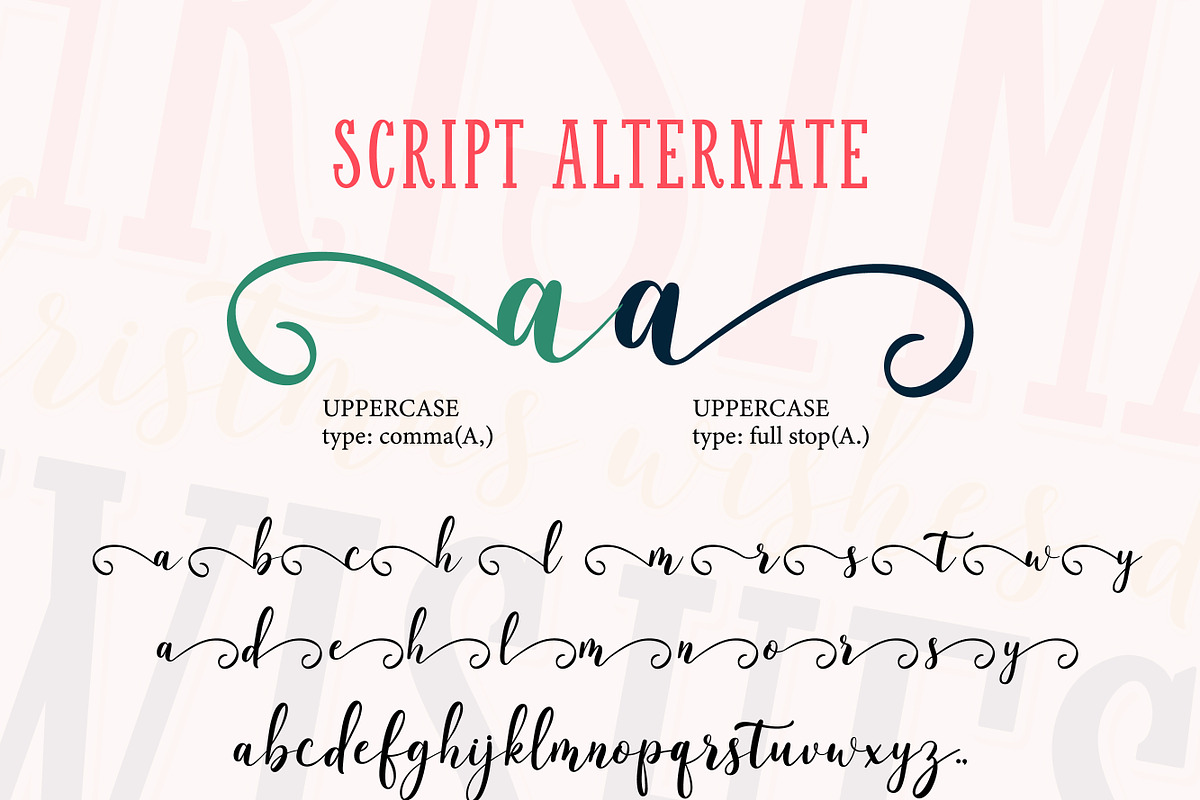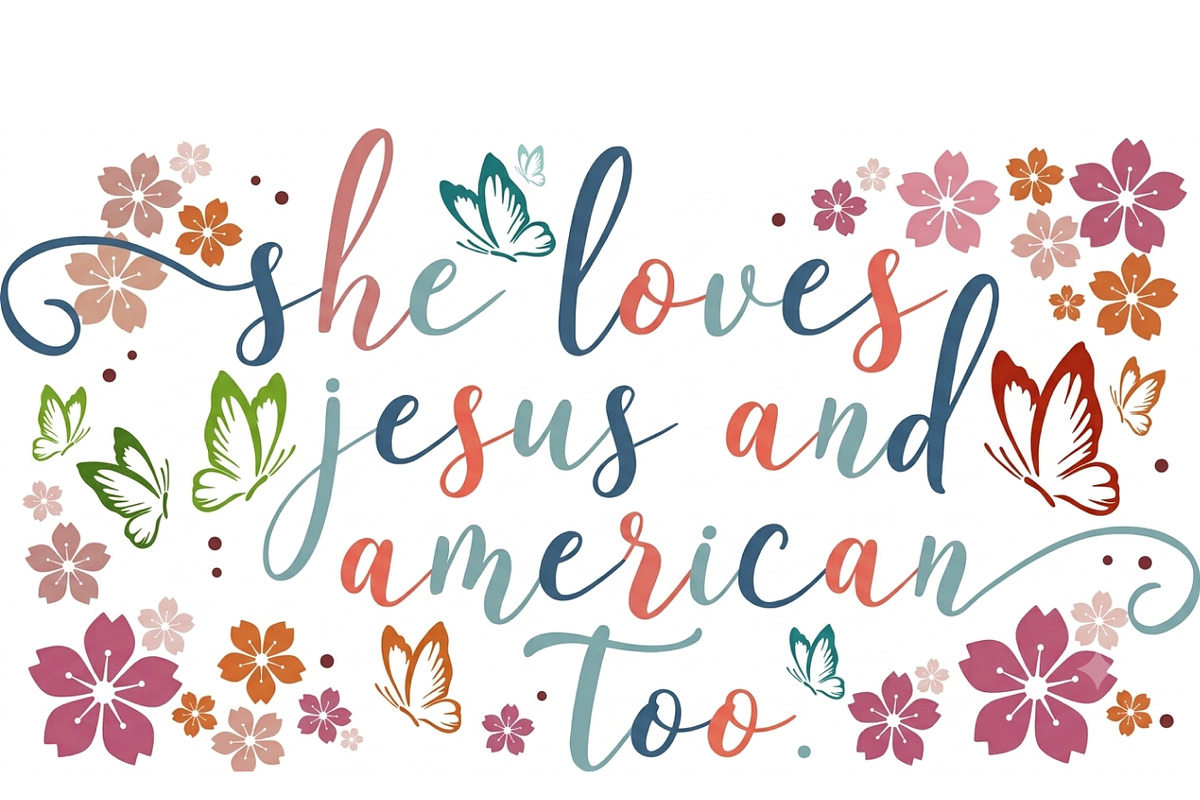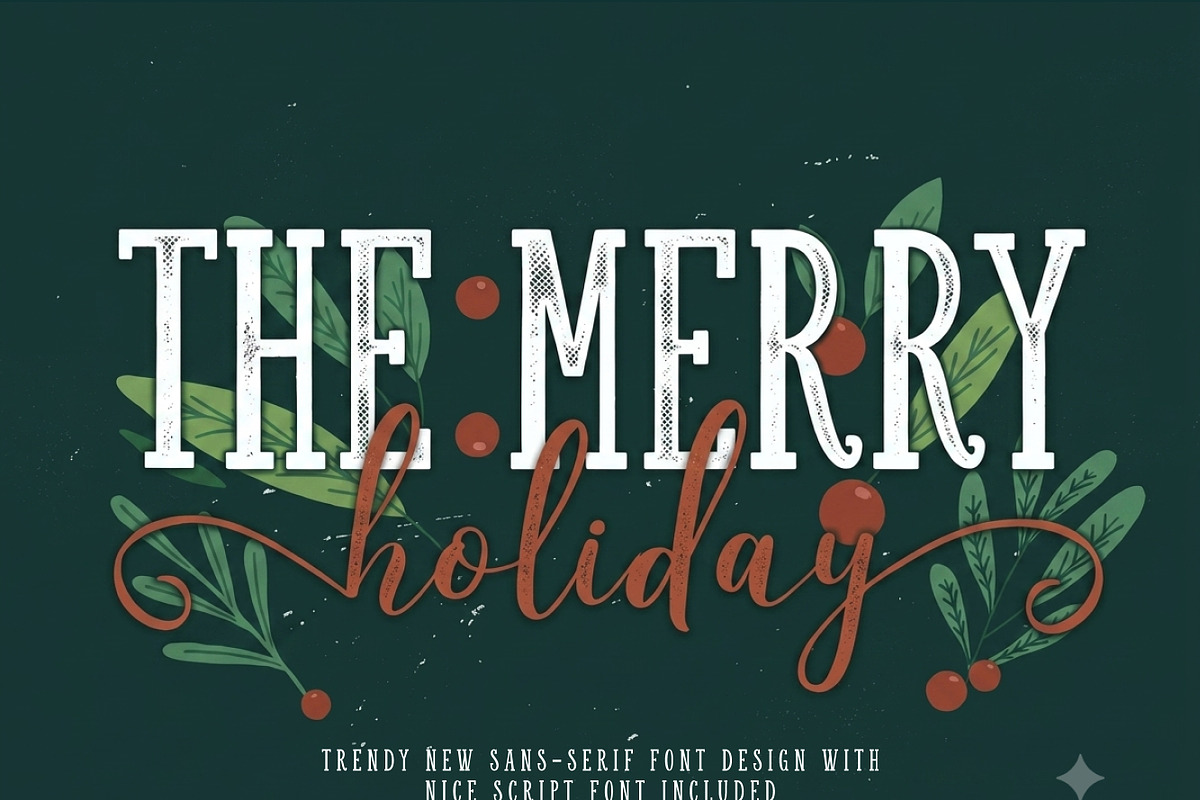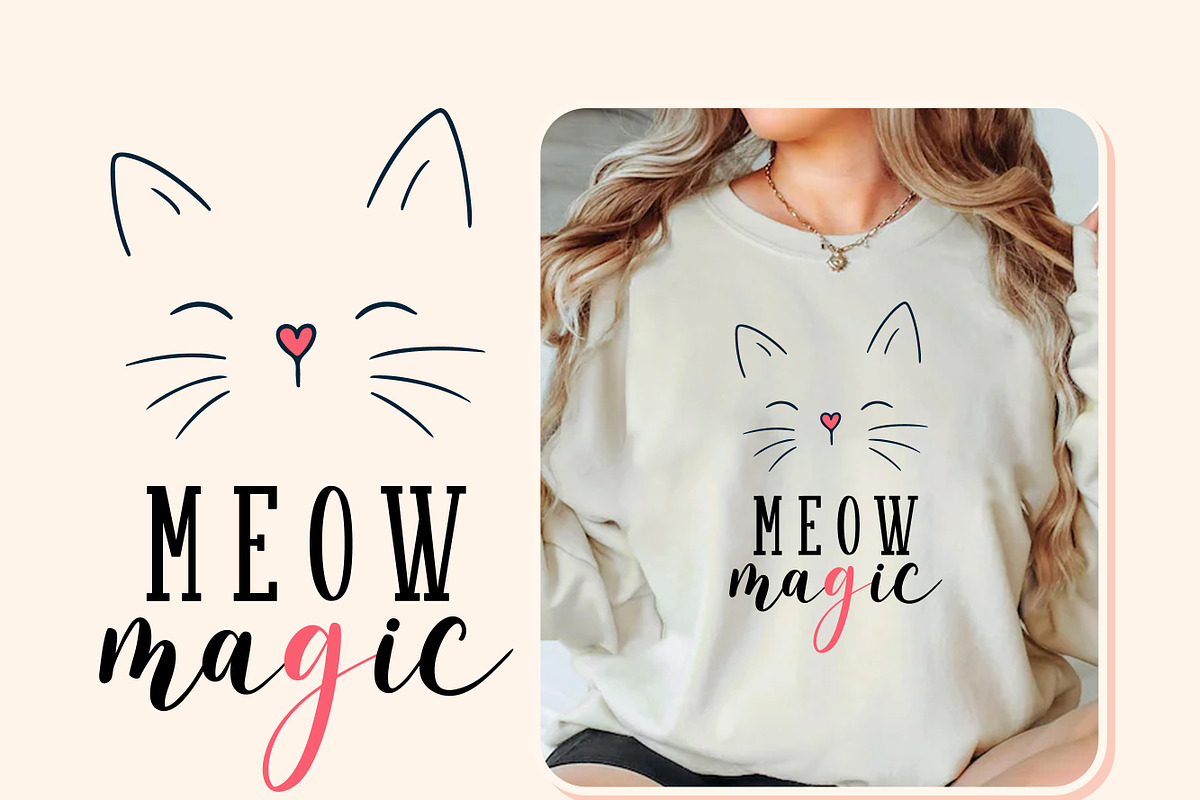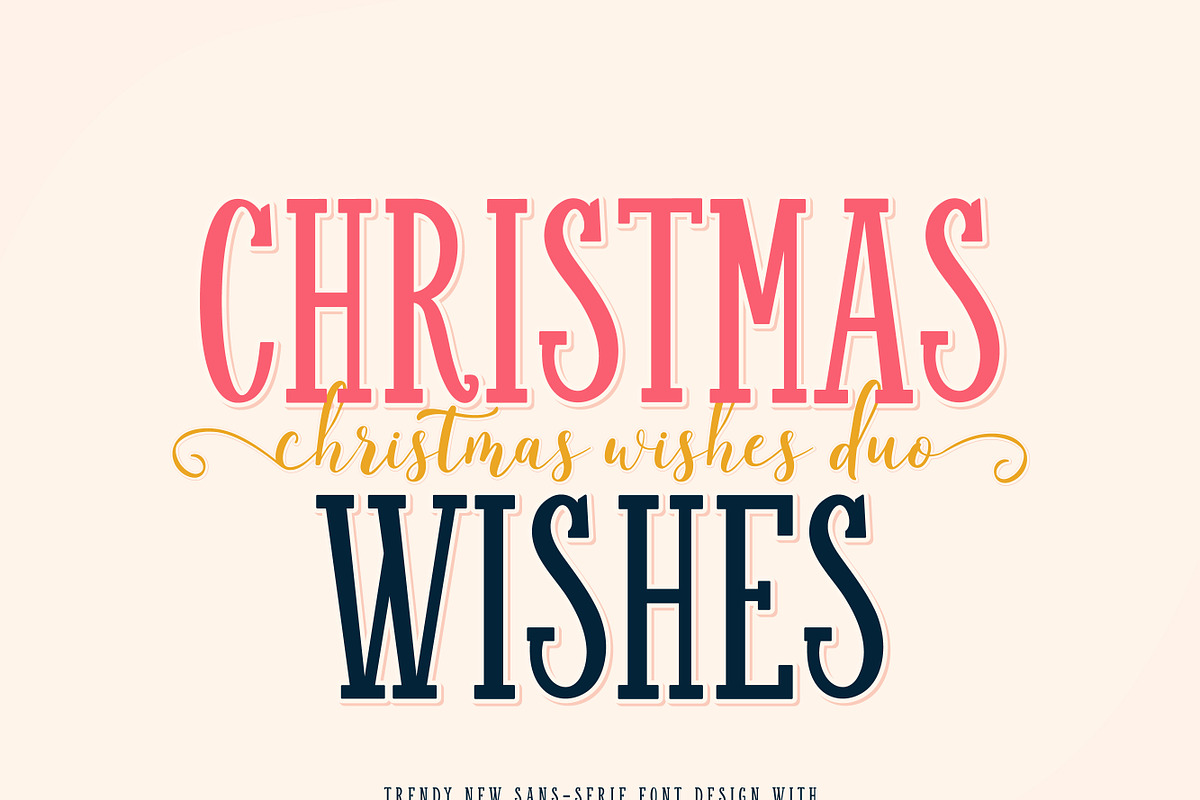
Christmas Wishes Duo - Festive Duo
Christmas Wishes Duo is a stylish and delicate duo font design (playful sans serif with trendy script font) handwritten fonts designed to bring a friendly, human touch to your designs. Duo is PUA encoded which means you can access all of the glyphs and alternate ease.